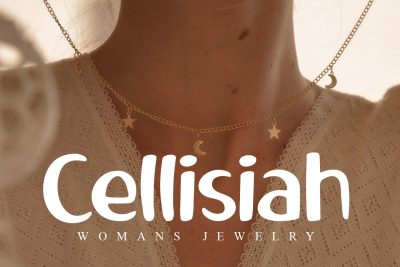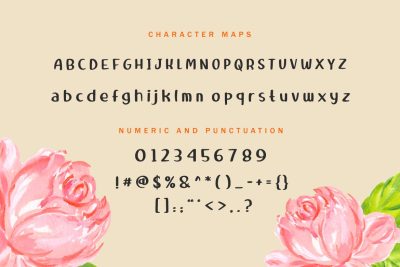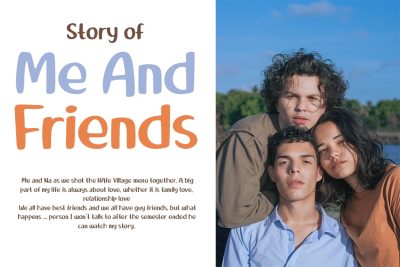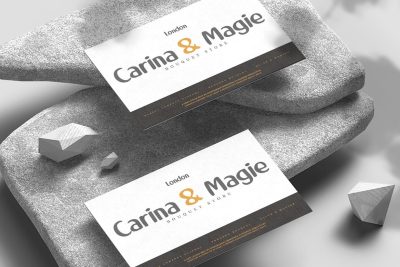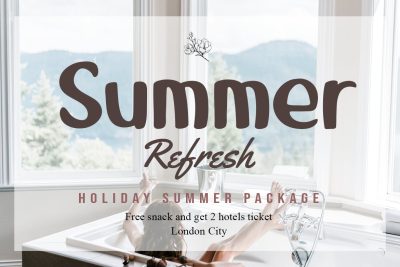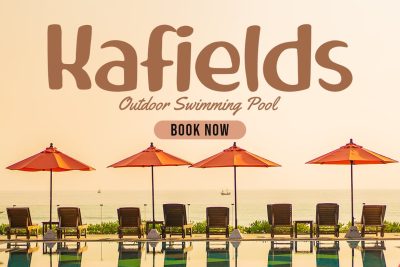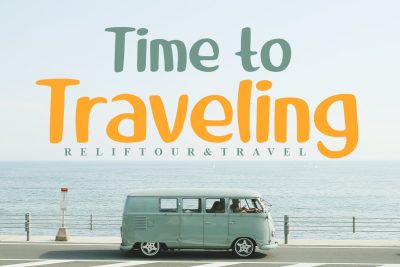
Cute Font Sundae Ice is a delightful and elegant typeface with a playful, feminine charm. Its rounded, bold letters and smooth curves create a design that is stylish and approachable. Sundae Ice blends elegance with warmth, appealing to those seeking something fun yet refined. Each letter has a whimsical touch, adding personality without overwhelming the design. Its clean look ensures readability at various sizes while adding a sophisticated flair.
This font brings a cozy, inviting feel to any project, evoking the joy of a sweet treat. Sundae Ice suits modern, feminine themes but also works well for casual designs. Whether for digital media or print, it remains clear and appealing, ideal for headers, titles, and some body text. Its mix of charm and elegance fits various styles, from fun and vibrant to classy and chic.
Cute Font Sundae Ice Ideal For
Cute Font Sundae Ice is perfect for brands and creators focusing on femininity, elegance, and friendliness. Itโs great for beauty, fashion, and lifestyle brands that want to appeal to a young, trendy audience. Sundae Ice adds a sweet, personal touch to designs for makeup brands, boutiques, and wellness products. Its soft, playful vibe works well for packaging, labels, and promotional materials that need an inviting look.
Sundae Ice also fits well with cafes, dessert shops, and artisan food brands. The fontโs style aligns with themes of indulgence, making it ideal for menus, signage, and social media posts that aim to delight. Itโs also perfect for seasonal promotions like holiday campaigns or limited-edition products, where a warm, friendly look is key.
Beyond commercial uses, Sundae Ice shines in personal projects like invitations, greeting cards, and crafts. Its cute, elegant style suits wedding stationery, birthday invitations, and thank-you cards. Social media influencers can use Sundae Ice to add a friendly, elegant touch to posts and stories, connecting warmly with followers. In short, Cute Font Sundae Ice adds sweetness and elegance to any project.